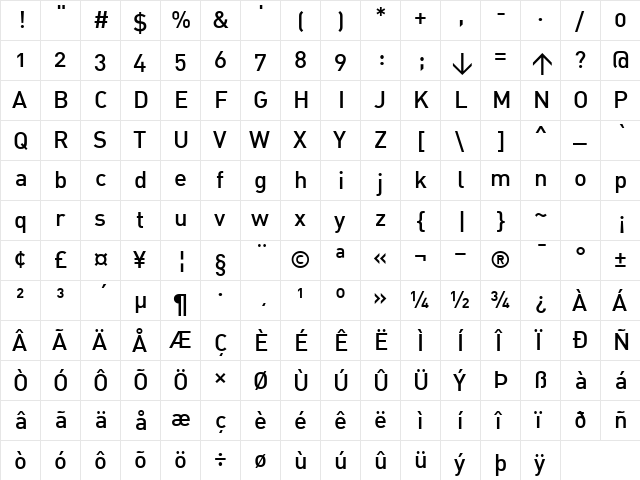
DIN MediumAlternate
Design Context for DIN Typeface
DIN takes a measured approach to typography — its balanced proportions and neutral character make it a reliable workhorse for both digital and print work.
Pro Tip: Use DIN in both headline and body roles to test its range before committing to a single application.